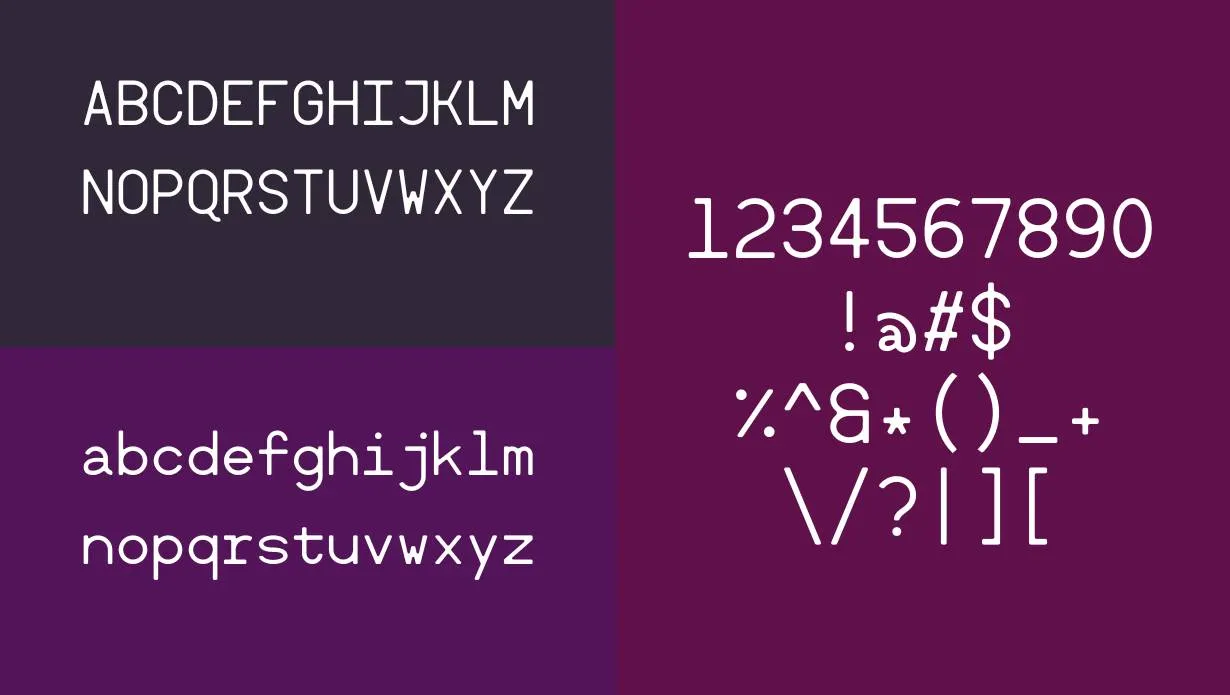
Monique Contemporary font brings a stylish and modern appeal, often used in magazine covers, logos, or projects seeking a trendy and contemporary look.
Its chic and fashionable style offers a modern and sophisticated touch to texts, making it an excellent choice for designs aspiring for a trendy and up-to-date aesthetic.